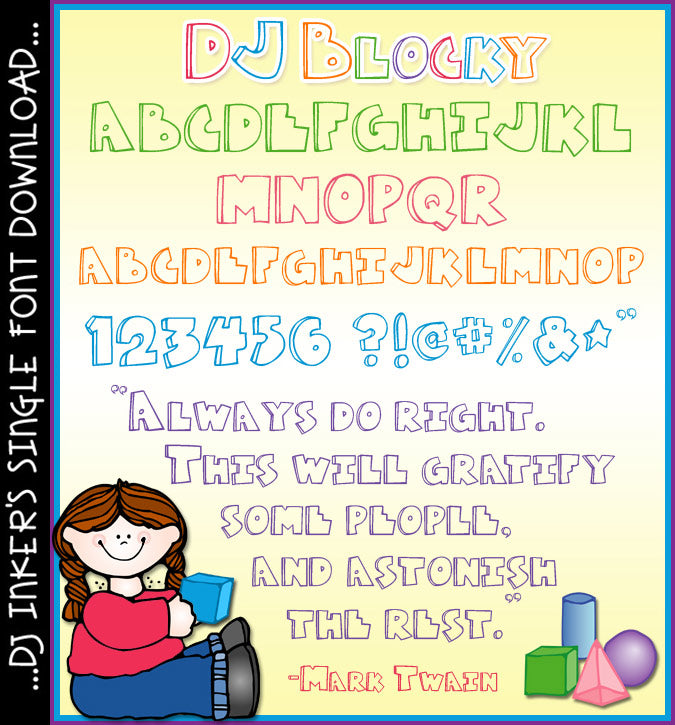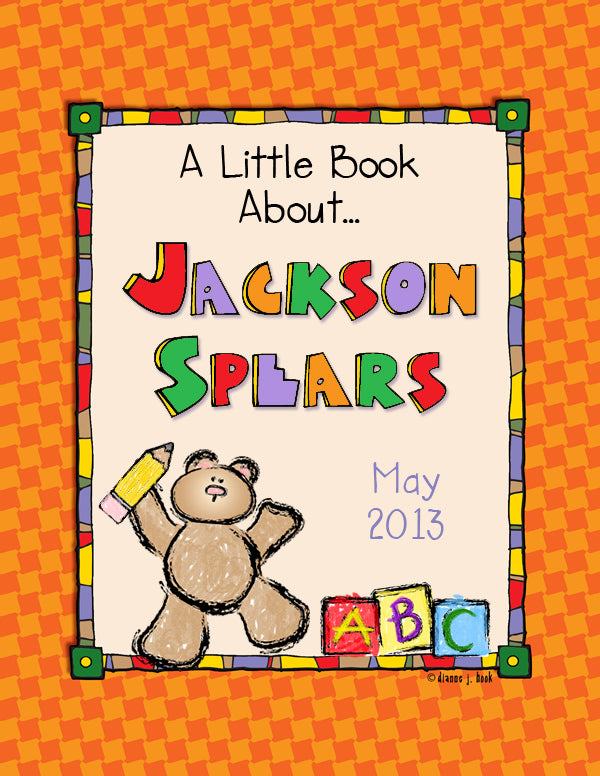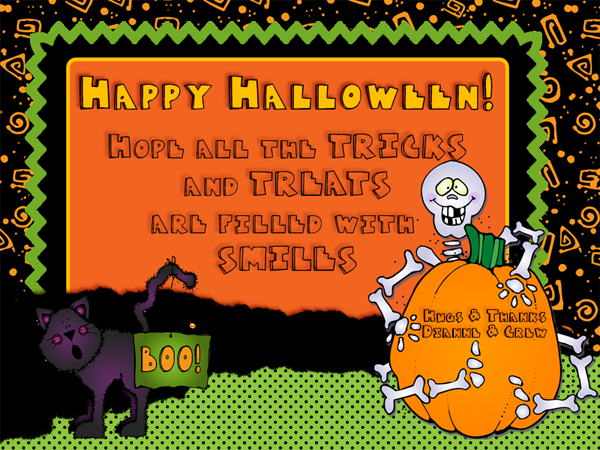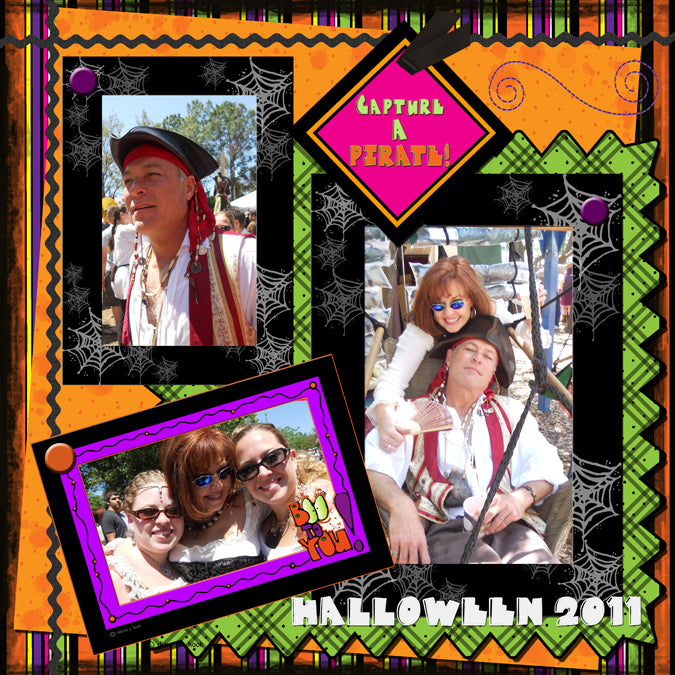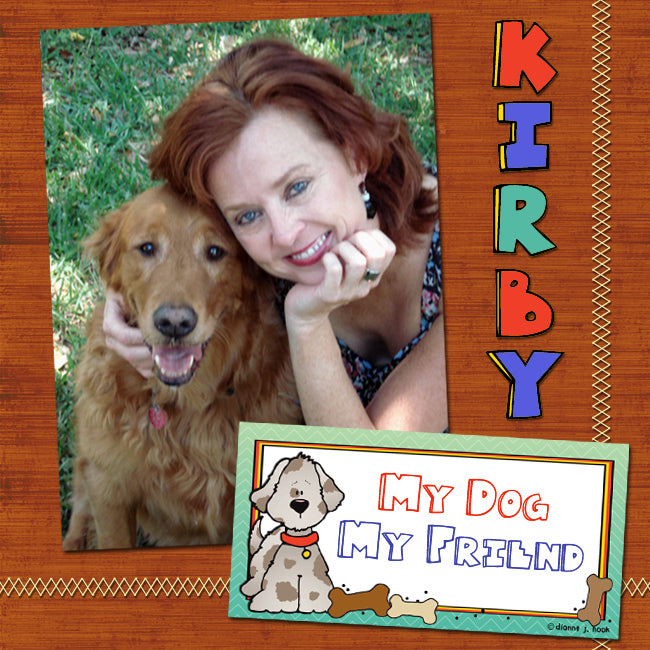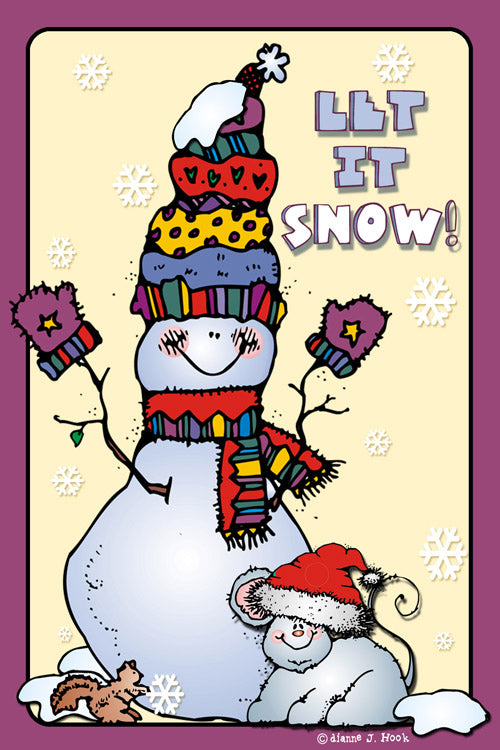
DJ Blocky Font Download
Add a smile to your headlines with our DJ Blocky font! This sturdy
little font is fabulous for headers, party invites, play dates & games,
scrapbooking, desk nameplates... or anything artsy! 'DJ Blocky' will work
best as a headline font (larger text sizes), but it looks simply fabulous
in any color. (djdf39)
Also includes Spanish characters!